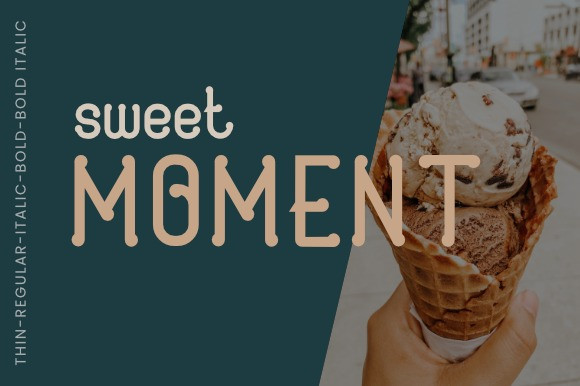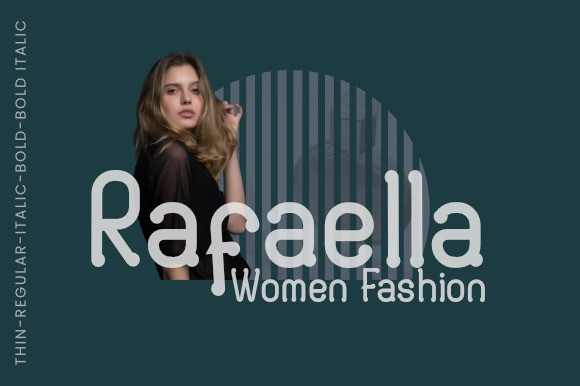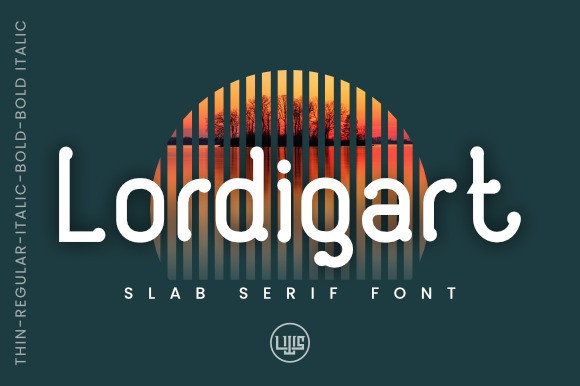
Lordigart Font
Lordigart Font is a cool, neat and modern-styled slab serif font. This font is ideal for web designs, business cards, or pretty much anything else that requires a futuristic touch.